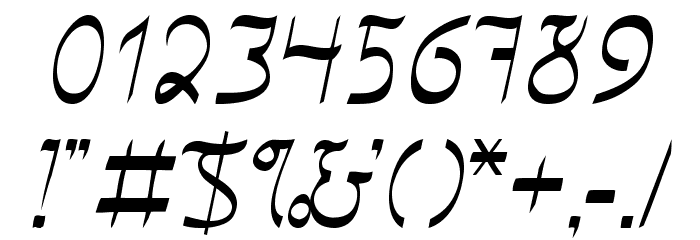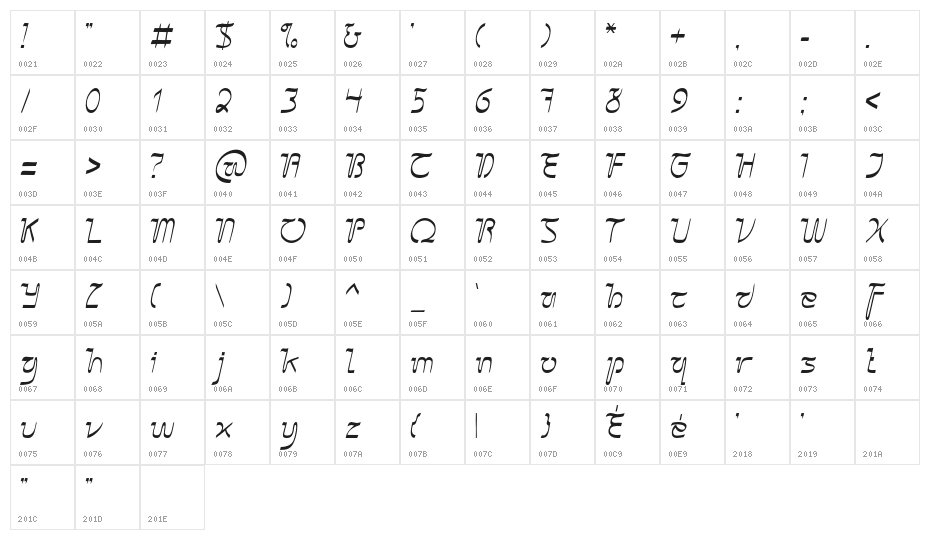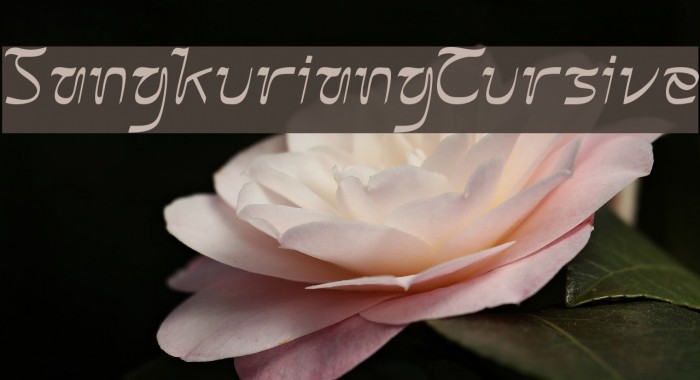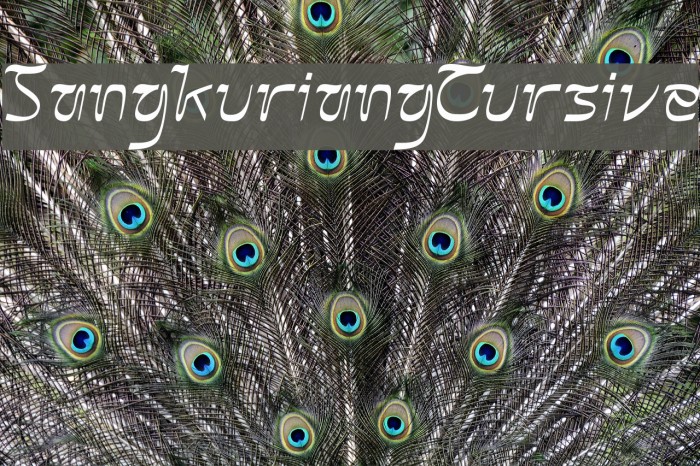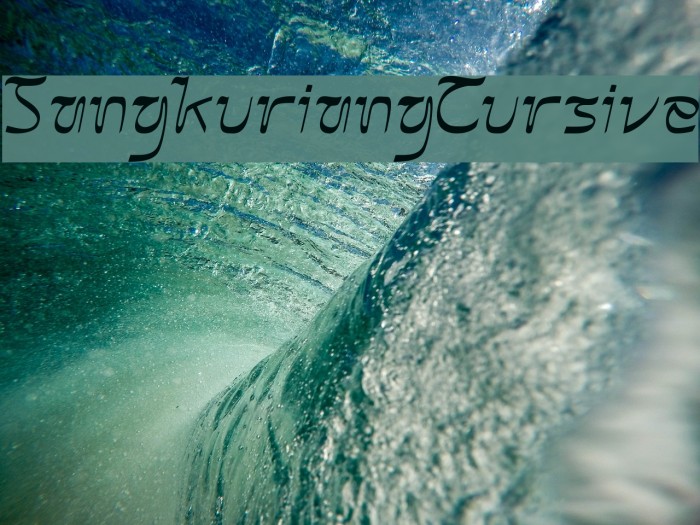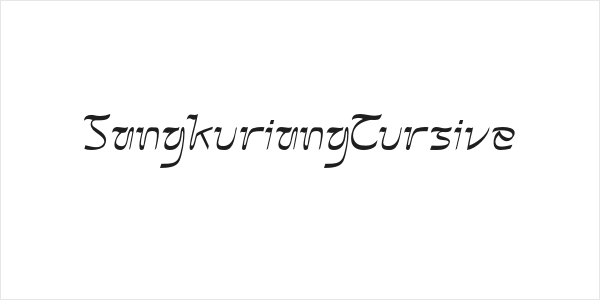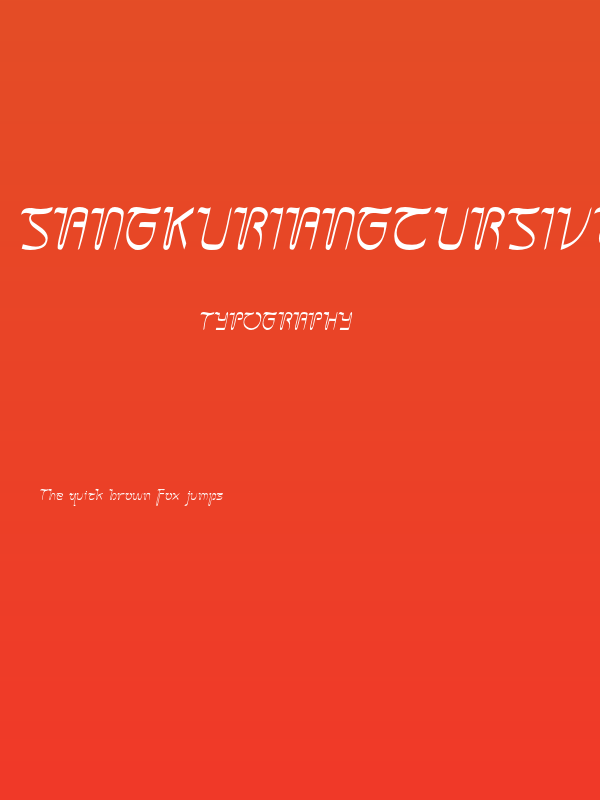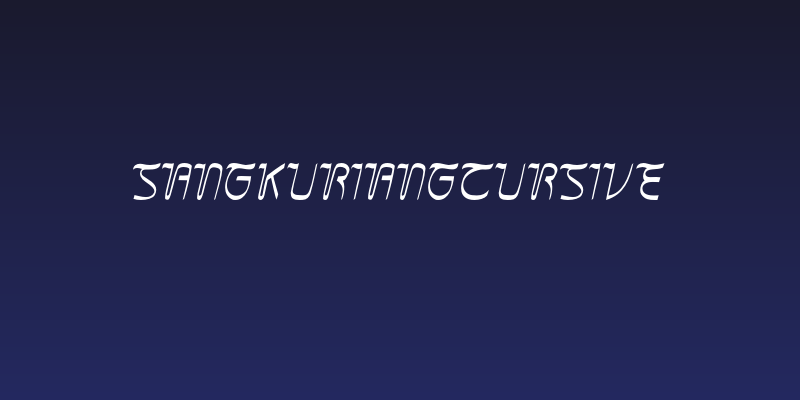
SangkuriangCursive Font
SangkuriangCursive Description
This font features a dynamic and flowing cursive style, characterized by its elegant and elongated letterforms. The strokes are smooth and slightly slanted, giving it a sense of motion and fluidity. The uppercase letters are bold and prominent, while the lowercase letters maintain a consistent rhythm, enhancing readability. The numerals are distinct and harmonize well with the overall design. Special characters are creatively integrated, maintaining the cursive theme. This font exudes a modern yet classic appeal, making it versatile for various design applications.
| Overall Style | Modern Classic |
| Proposed Projects | Ideal for wedding invitations, branding, logo design, and elegant stationery. |